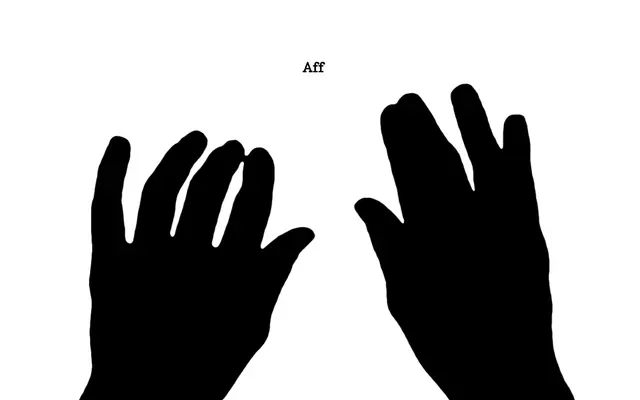
A geometric sans with a technical, keyboard-inflected character and a thoughtful set of OpenType alternates across five weights.
Five weights from Thin to Bold, each with a matching italic, give Affix a workable range for both display and text settings. Character alternates for the lowercase a, g, t and y, alongside round dot variants, allow for tonal shifts between humanist warmth and strict geometric rigour. The specimen leans into typewriter and computing references, from the IBM Selectric to Olivetti, suggesting an intended audience comfortable with that kind of visual shorthand.
Affix is a geometric sans-serif with alternate forms for key characters (a, g, t) and a clean, technical aesthetic with roots in keyboard and typewriter culture. Its even stroke weight and circular forms place it firmly in the geometric sans tradition.